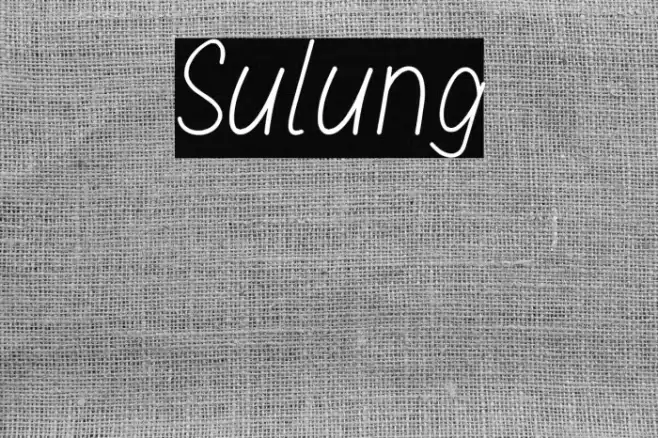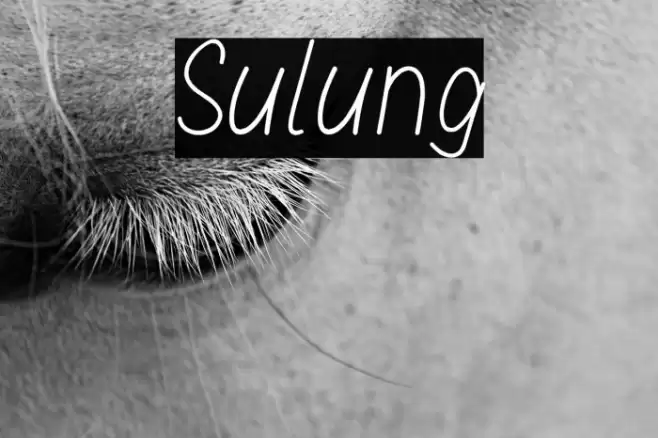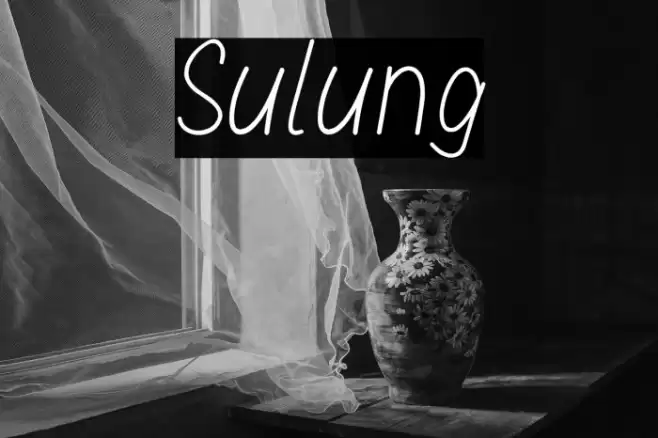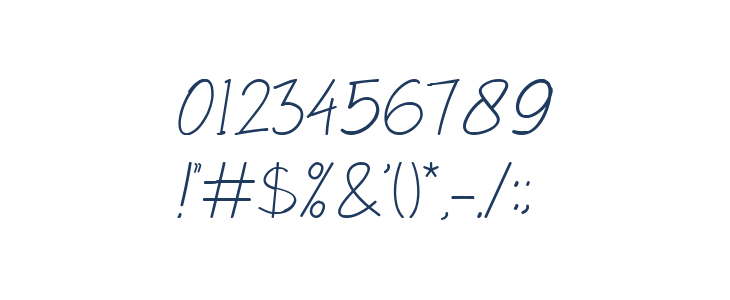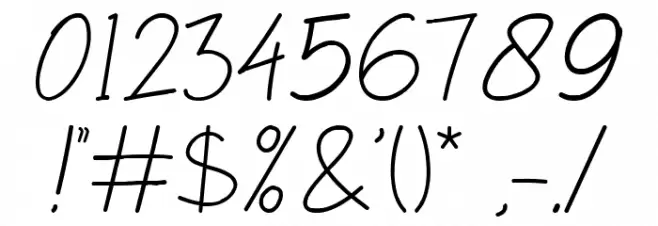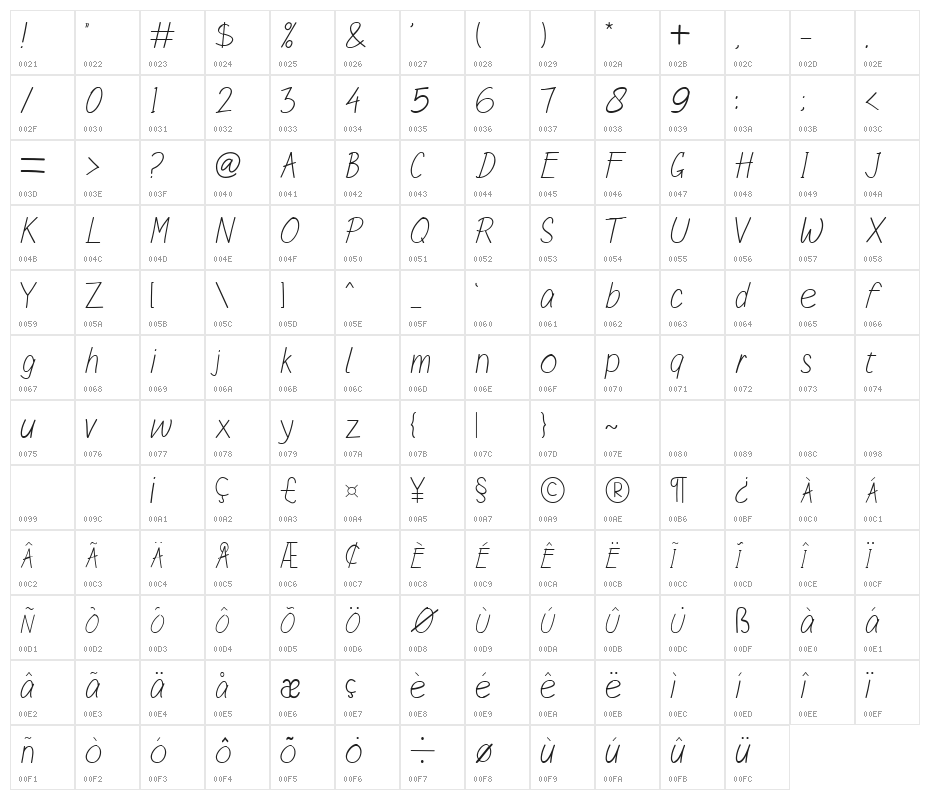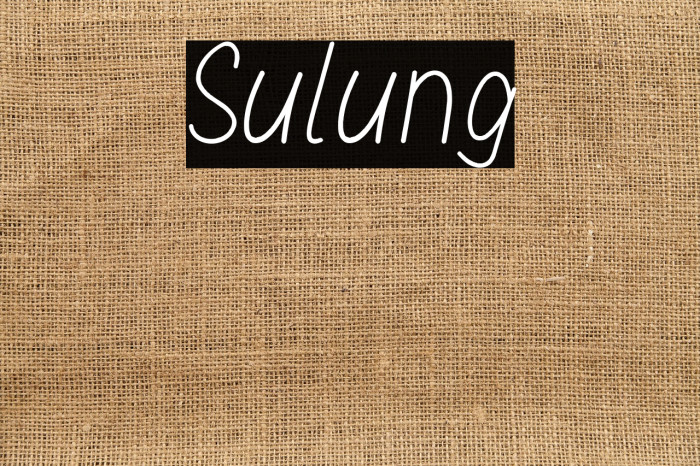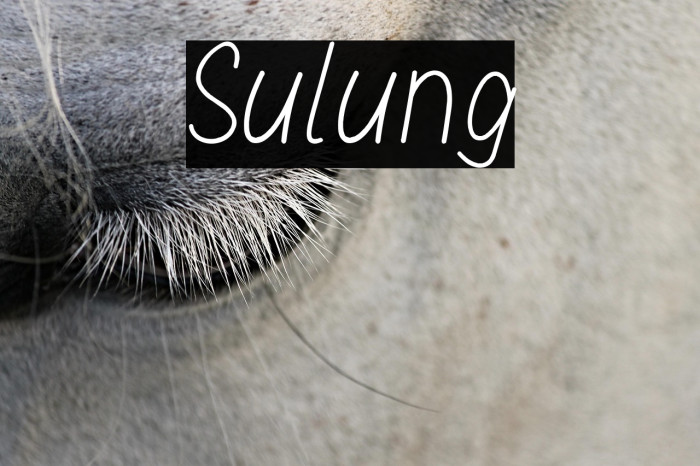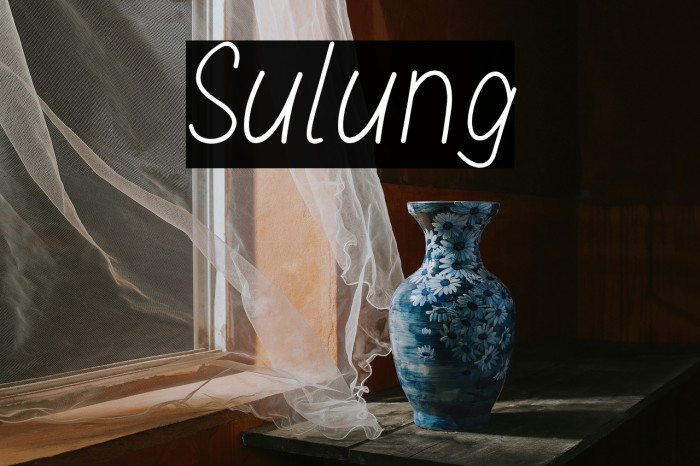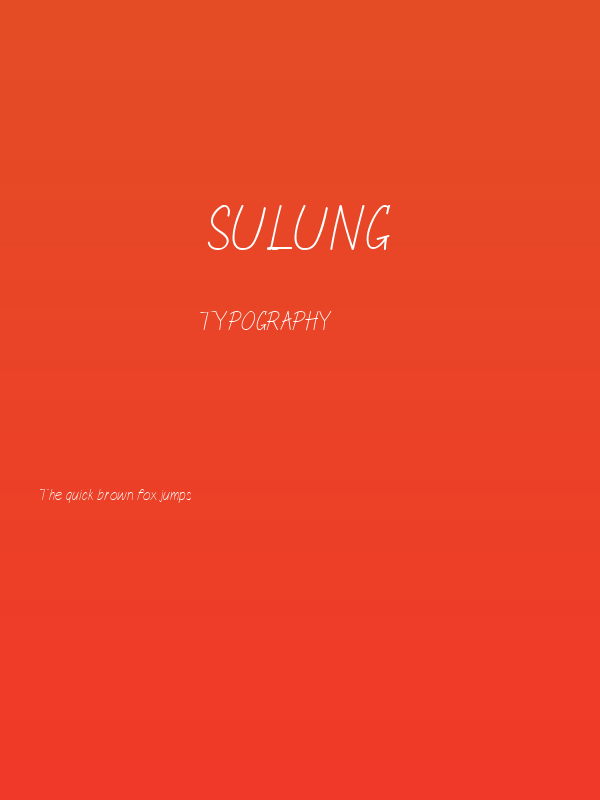
Sulung Font
Sulung Description
This font features a handwritten style with a casual and flowing appearance. The letters are slightly slanted, giving it a dynamic and informal feel. The strokes are consistent in width, providing a uniform look throughout the alphabet. The uppercase letters are tall and slender, while the lowercase letters maintain a cohesive and balanced design. Numbers and special characters are crafted to match the overall aesthetic, making this font versatile for various uses. The spacing between characters is moderate, ensuring readability without compromising its artistic flair.
A casual handwritten font with a dynamic and flowing style from Regular fonts.
- Font: Sulung
- Proposed Projects: Ideal for personal notes, invitations, greeting cards, and creative projects that require a personal touch.
- Overall Style: Casual
- Use Case: Invitations, Greeting cards, Personal notes